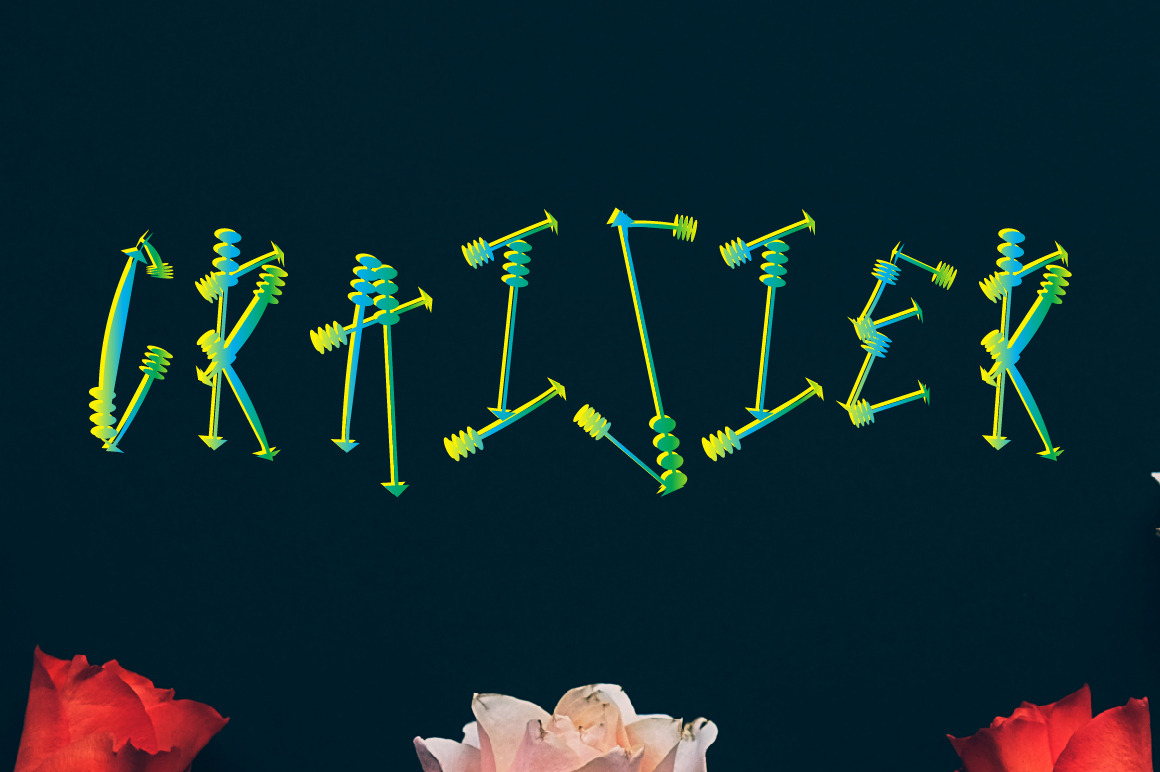
CraiSier Font
CraiSier Font is a decorative font that can be used in myriad places. Typeface has been carefully crafted to make your text look beautiful. With modern style this font is perfect for many different project ex: quotes, blog header, poster, wedding, branding, logo, fashion, apparel, letter, invitation, stationery, etc.